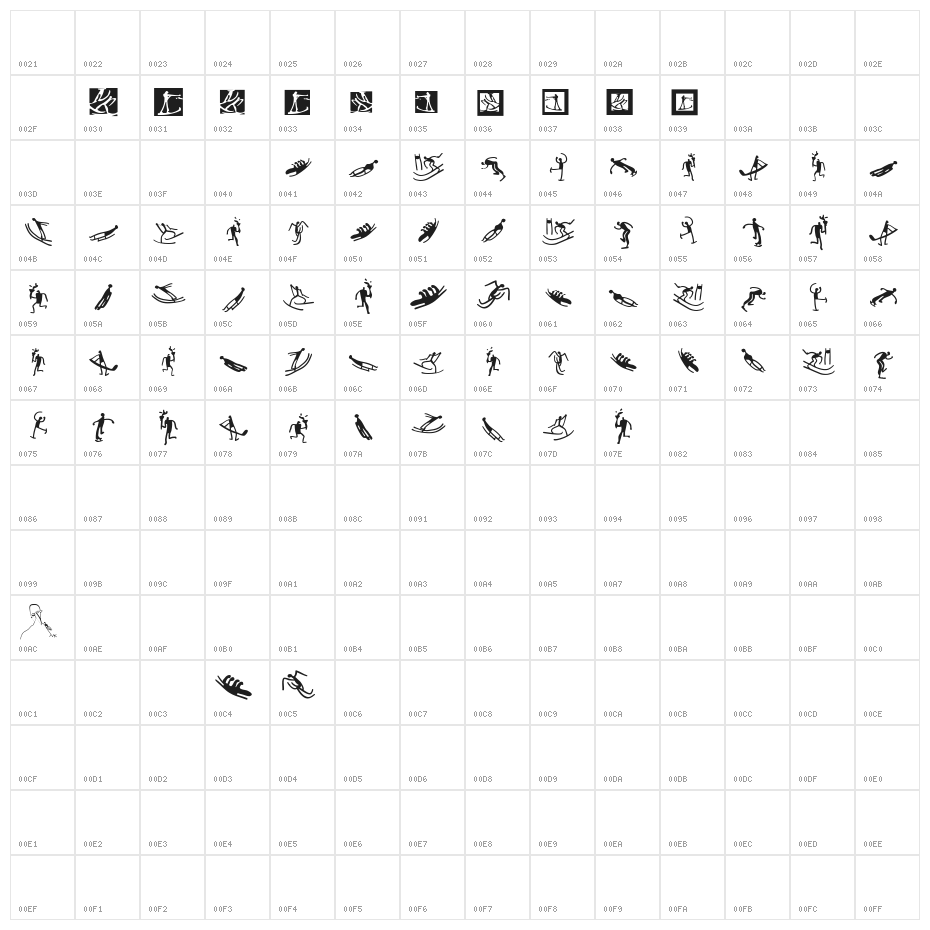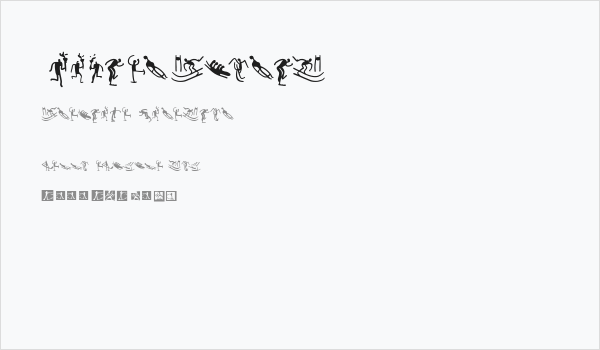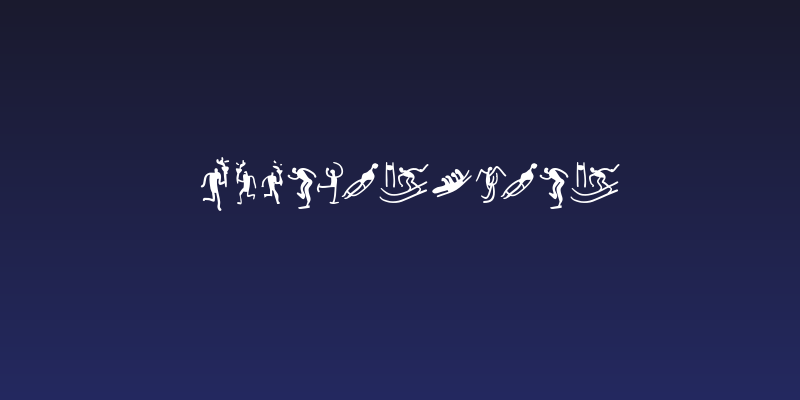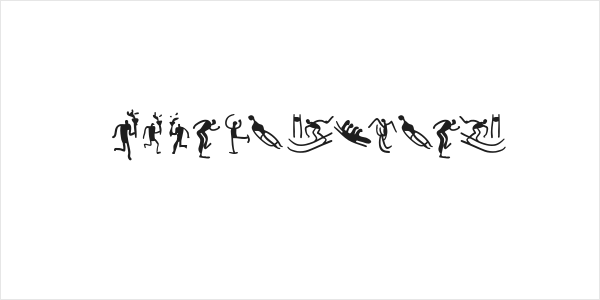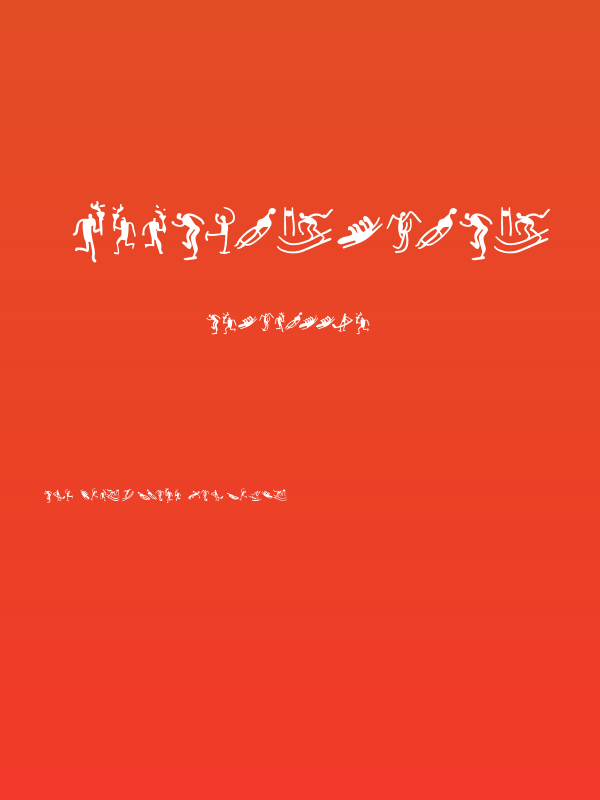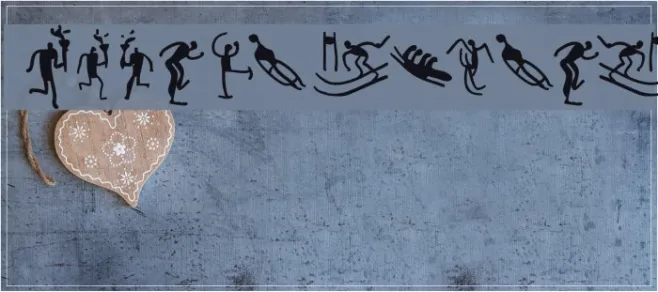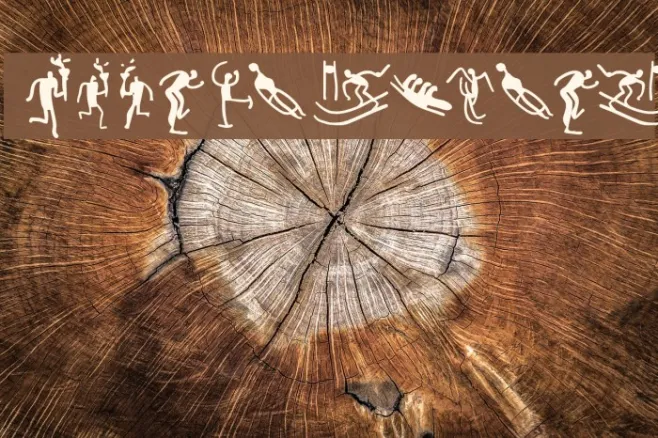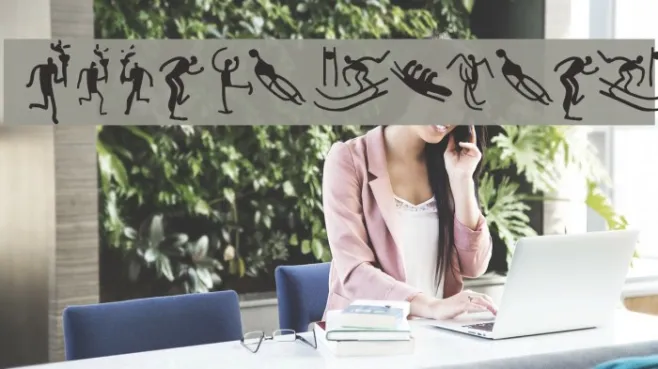
WinterSports Font
WinterSports Description
This is a decorative font featuring stylized representations of various winter sports activities. Each character is designed as a pictogram depicting athletes in motion, engaging in sports like skiing, snowboarding, and ice skating. The figures are dynamic and expressive, capturing the essence of movement and excitement associated with winter sports. The design is bold and graphic, making it suitable for thematic projects related to sports or winter events. The characters are well-defined with a consistent style, ensuring readability while maintaining an artistic flair.
| Use Case | Logos, Posters, Thematic Designs |
| Proposed Projects | Ideal for sports event posters, winter festival branding, or educational materials about winter sports. |